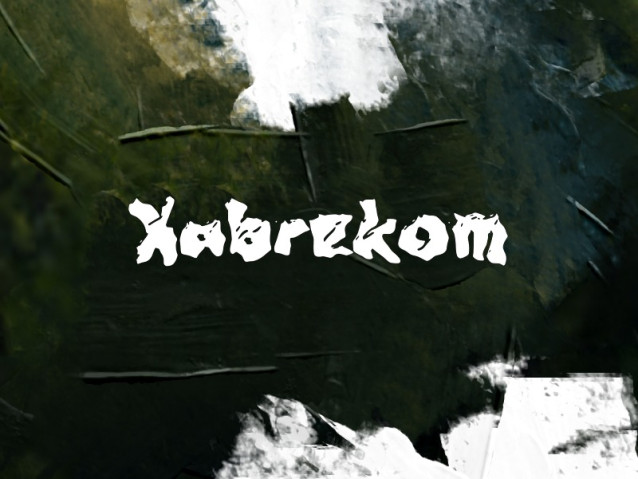
Xabrekom Font
Xabrekom Font  the latest distorted brush masterpiece from wepfont.com. Crafted by designer Wahyu Eka Prasetya, this bold display font delivers a heavy, weathered look perfect for rock music covers, alternative branding, streaming overlays, and dark fantasy graphics. With 98 unique glyphs and a deeply textured finish, Xabrekom injects an immediate aggressive, edgy vibe into any project. Download Xabrekom.ttf now for your personal projects!